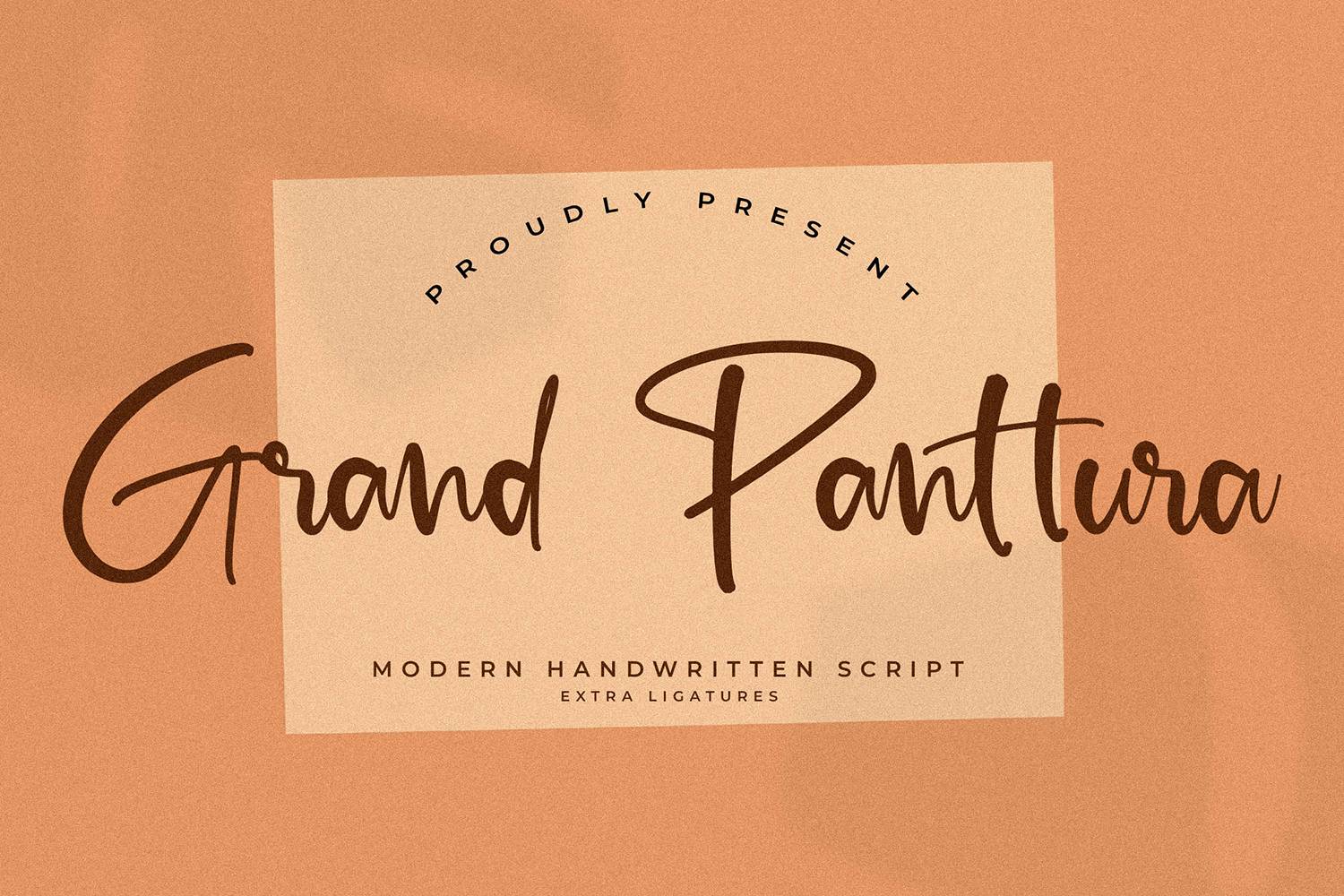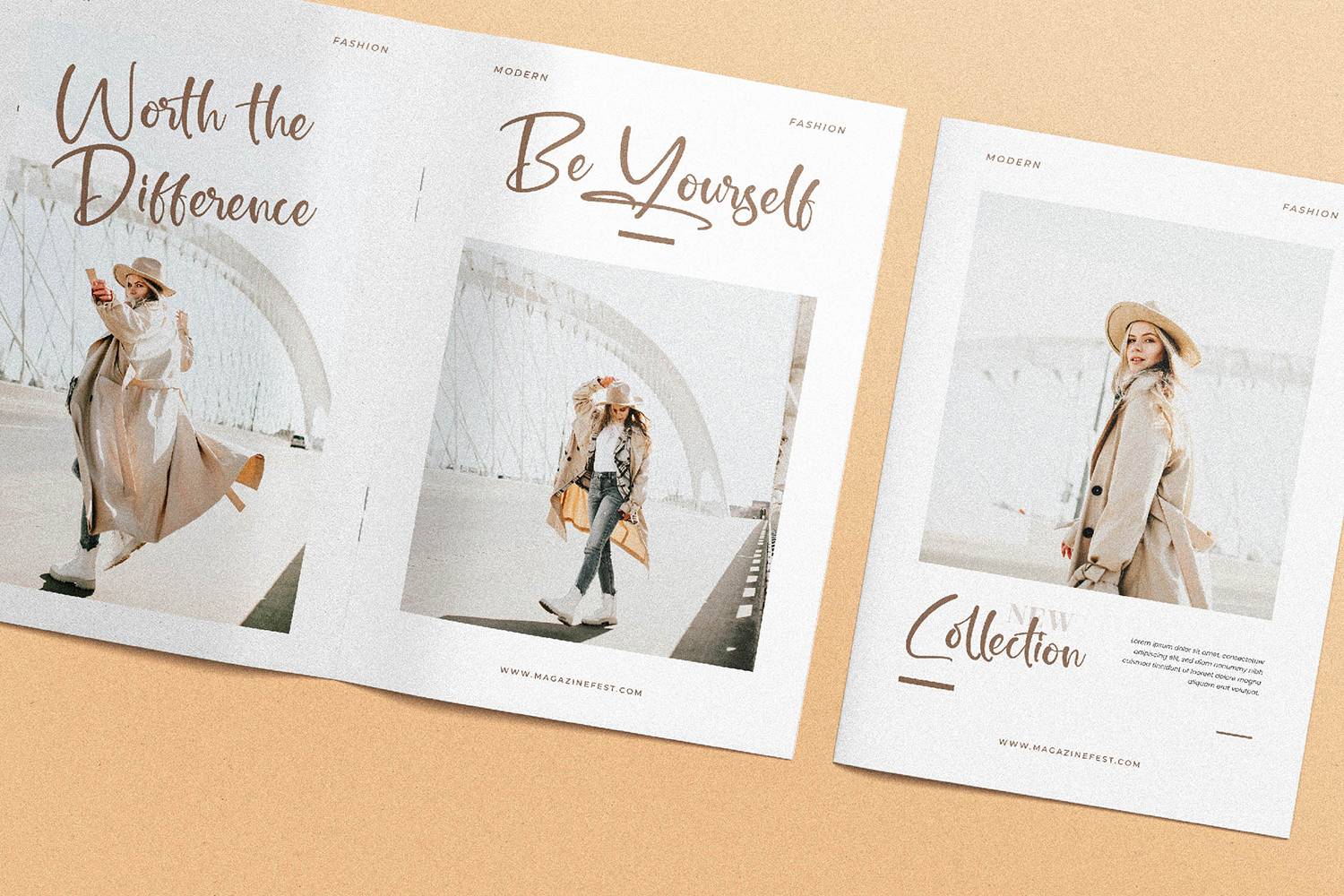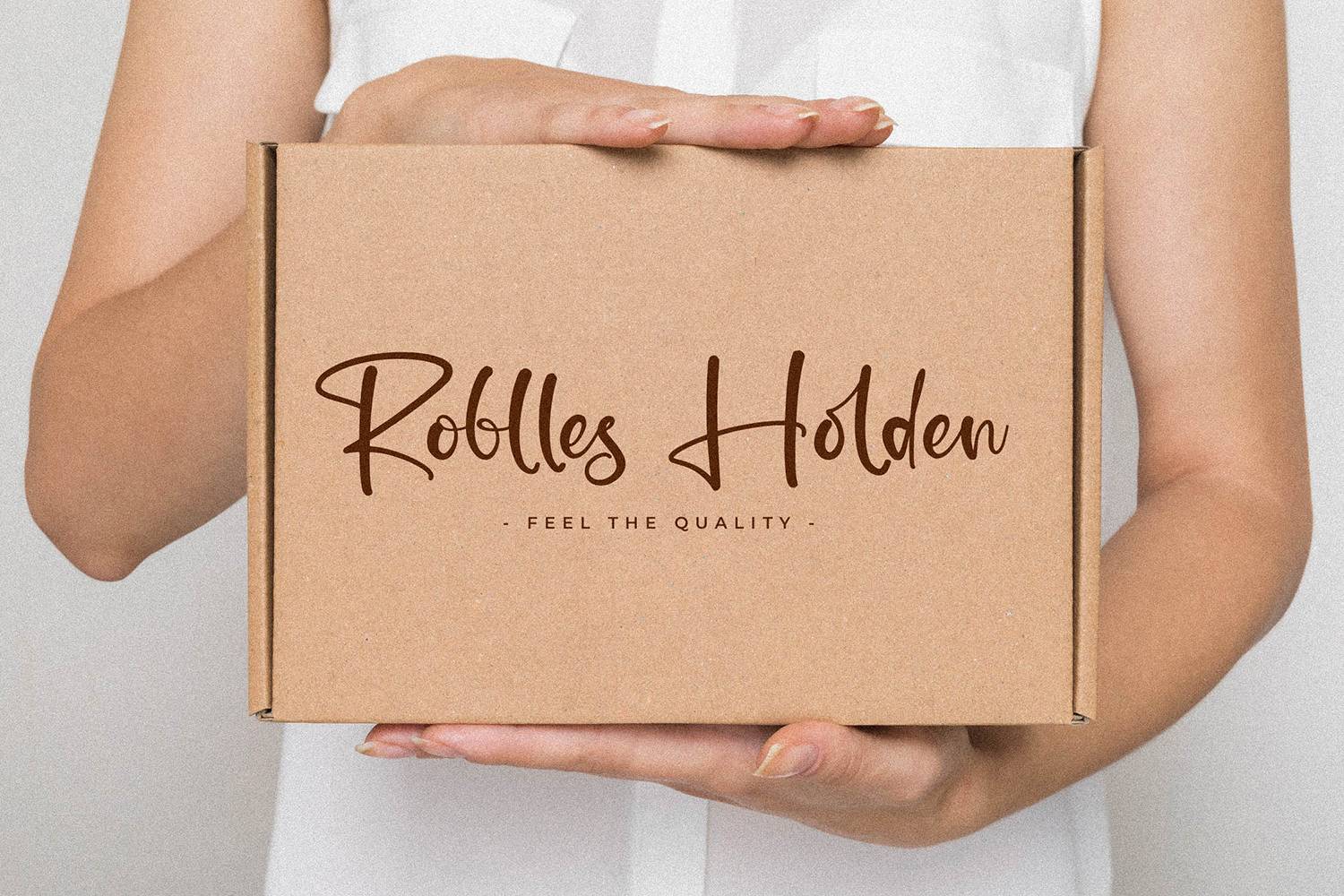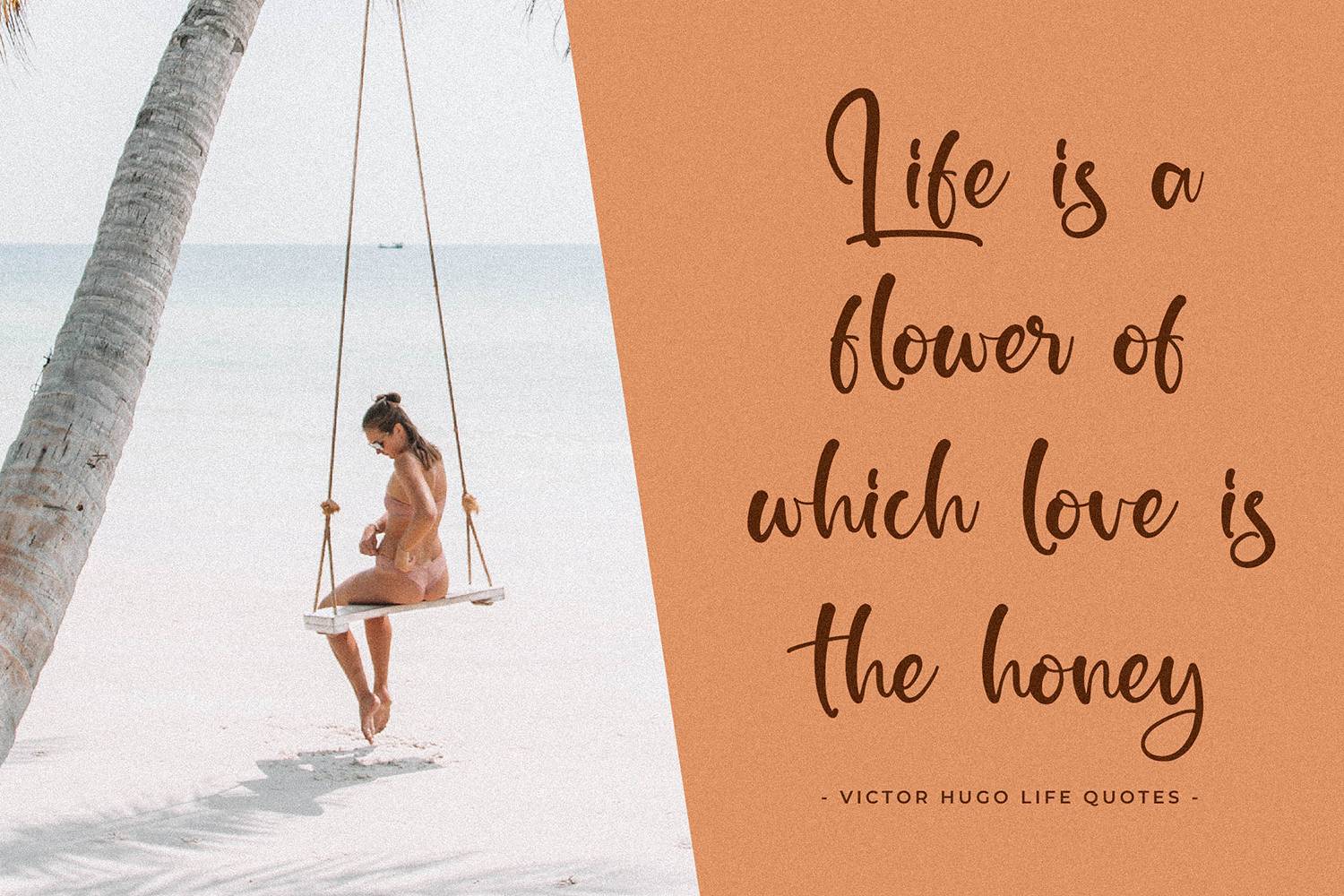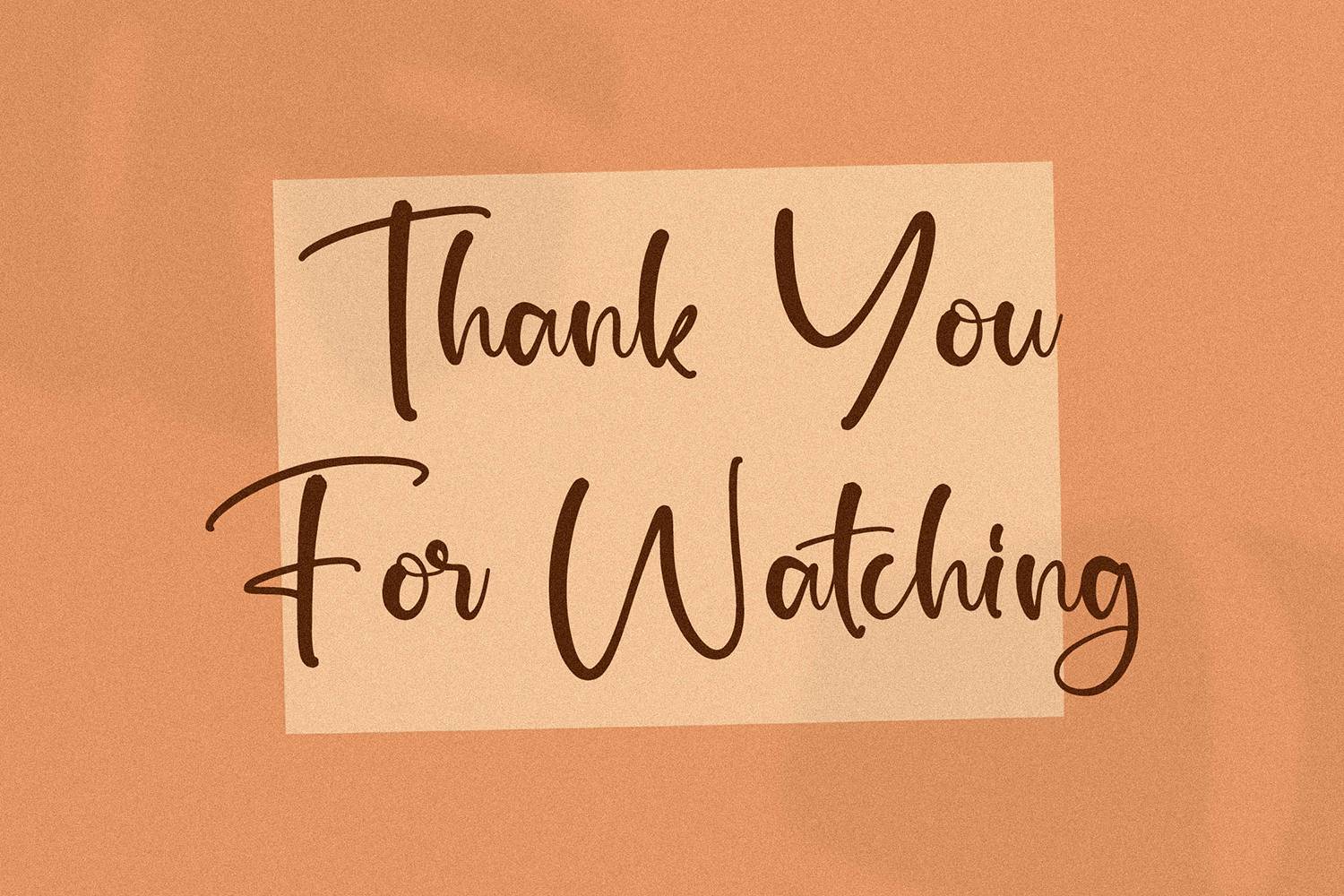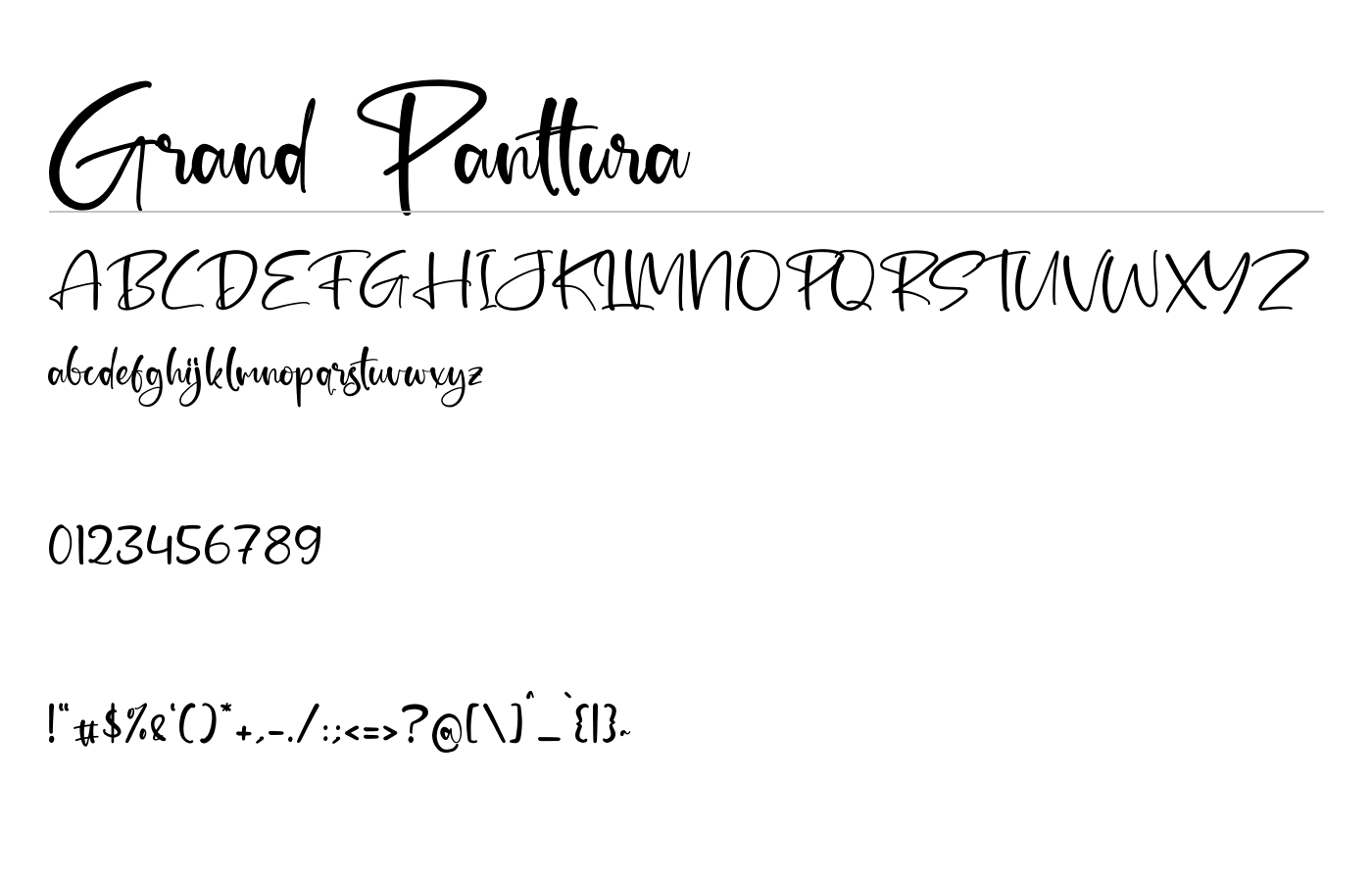
Grand Panttura is a lively and elegant script font with a natural, handwritten feel. Its smooth, flowing lines and varying stroke widths convey a stylish yet approachable personality, making it ideal for creative branding, invitations, and modern editorial designs that seek a personal touch. This font shines in projects where a blend of sophistication and casual charm is desired.
Grand Panttura Font
About Grand Panttura Font